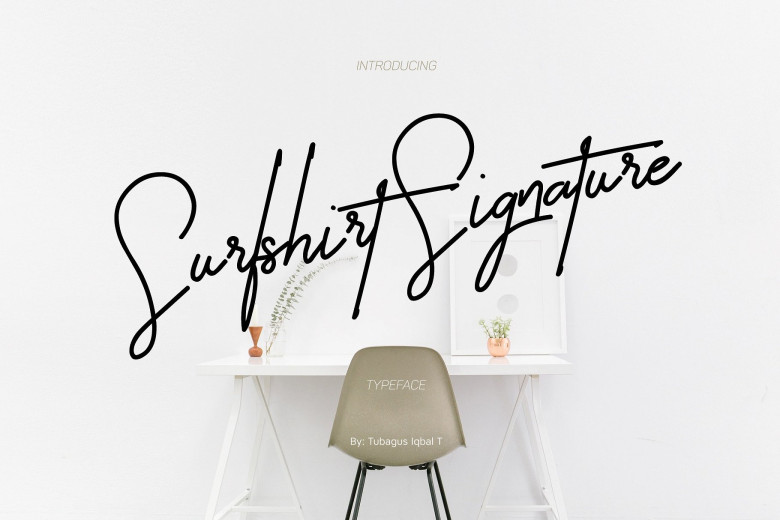
Surfshirt Signature Font
Introducing new script font Surfshirt. You know a sign of your initial name would not good look if you use sans serif so we brought you here to look something fresh, beautiful and meaningful. Introduce Surfshirt with a signature feel for your perfect design. This fonts suitable for this use in you for the signature, logotype, wedding invitation, quotes art, website header, packaging, branding, business card, fashion magazine and more. Tosca Beauty avaliables for alternative font and ligatures.